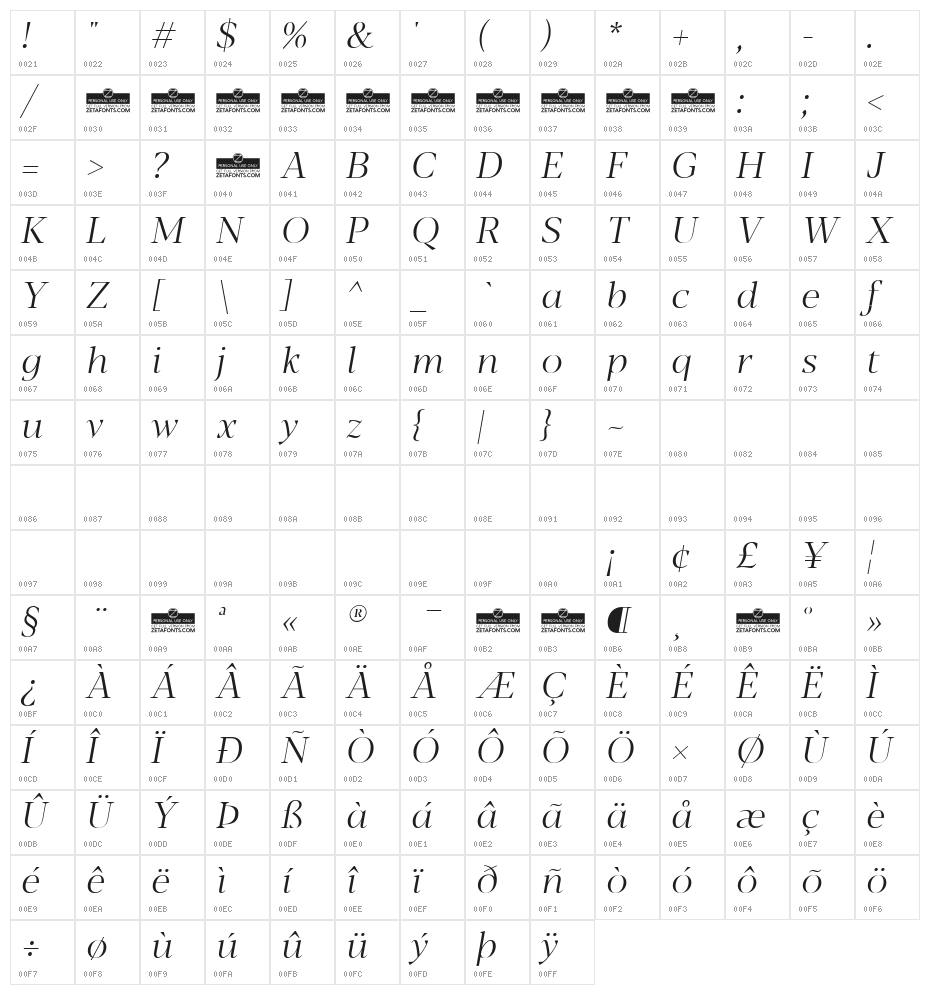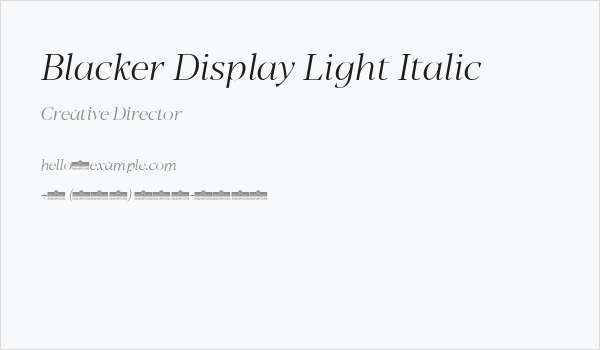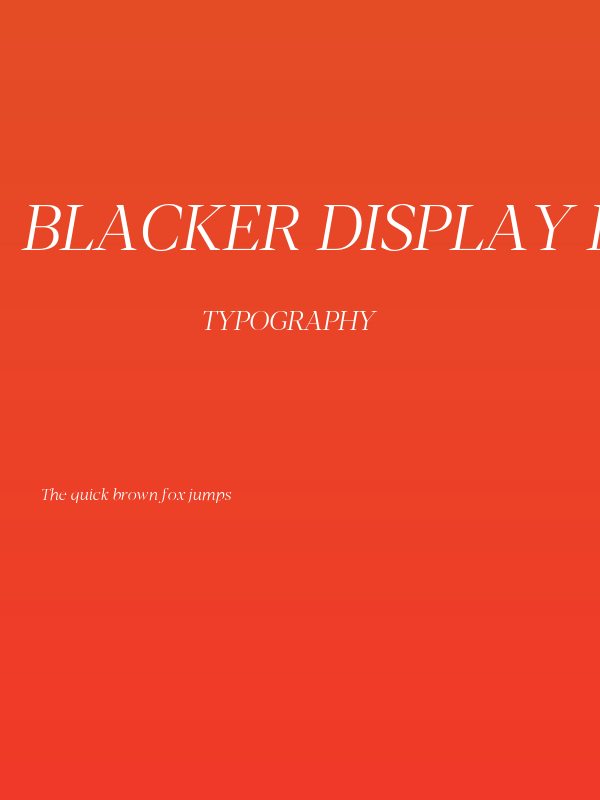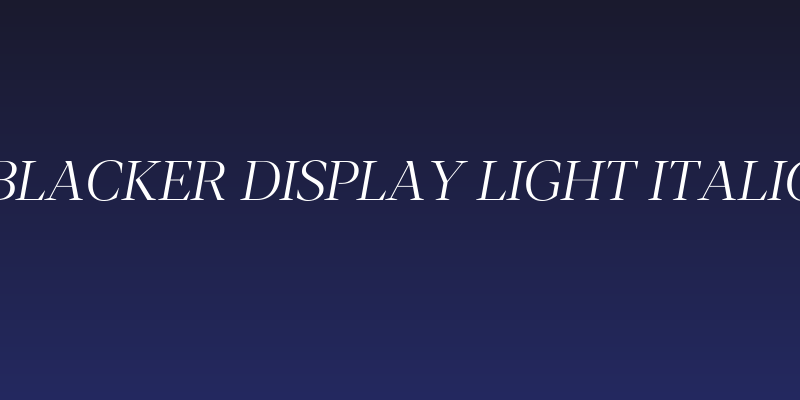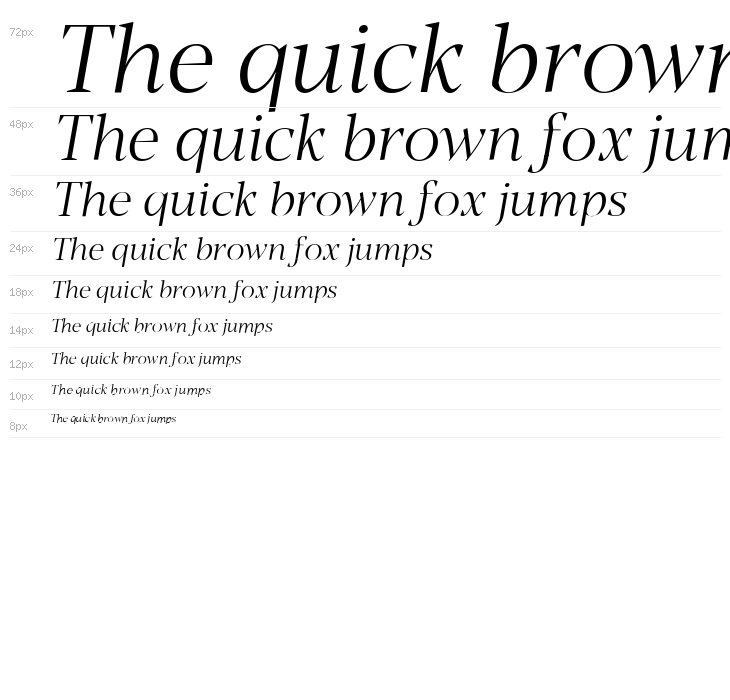
Blacker Display Light Italic Font
Blacker Display Light Italic Description
This elegant typeface features a refined and sophisticated design, characterized by its light weight and italic style. The letters exhibit a graceful slant, enhancing the font's fluidity and dynamic appearance. The serifs are delicately crafted, adding a touch of classic elegance without overwhelming the overall modern aesthetic. The font maintains a consistent stroke width, contributing to its clean and polished look. Its high contrast between thick and thin strokes further emphasizes its stylish and contemporary feel. The character spacing is normal, ensuring readability while preserving its sleek design.
| Use Case | Headlines, Logos, Editorial design |
| Proposed Projects | Ideal for luxury branding, fashion magazines, elegant invitations, and sophisticated editorial design. |